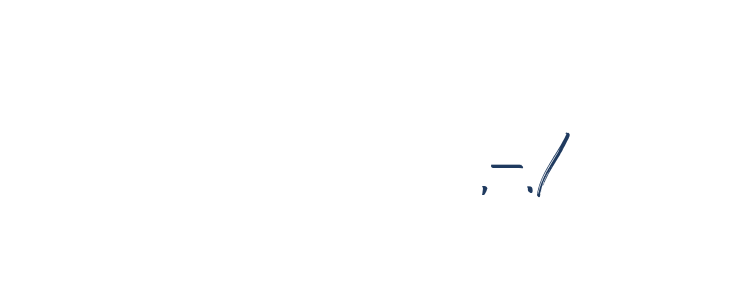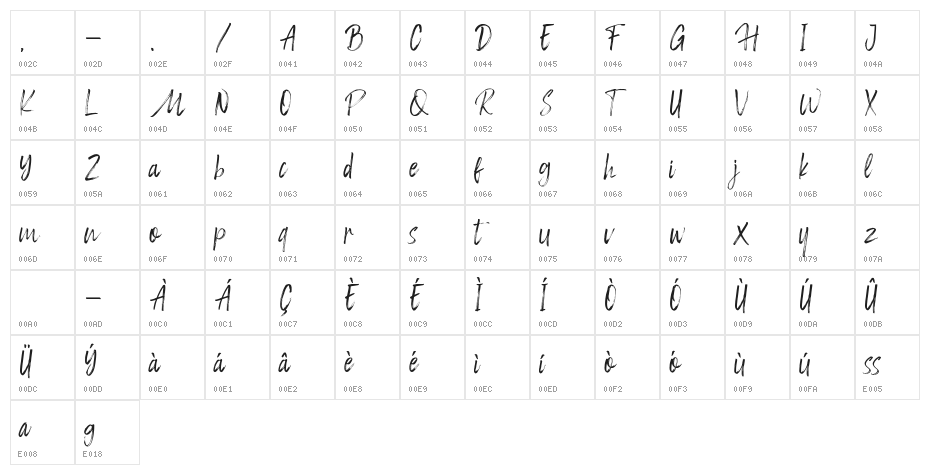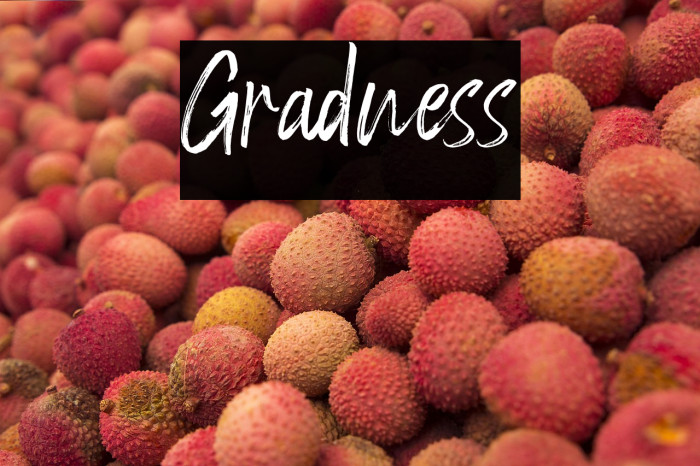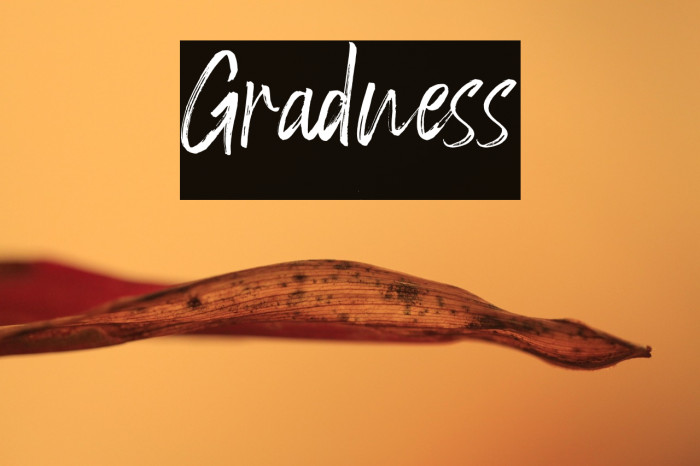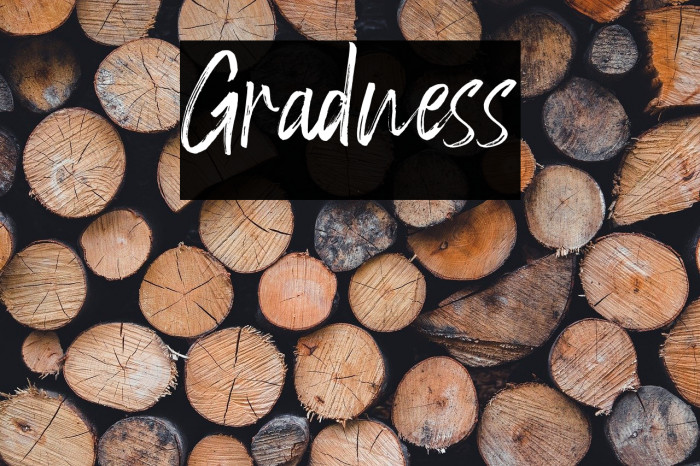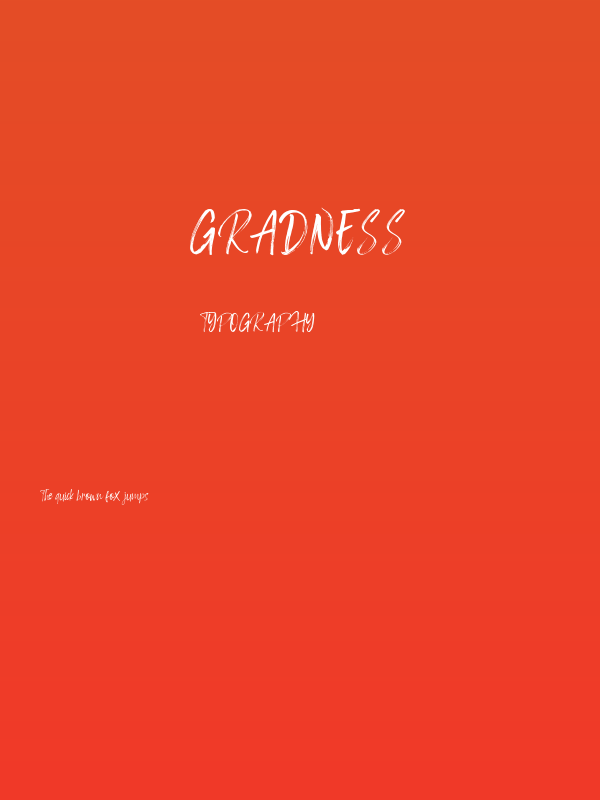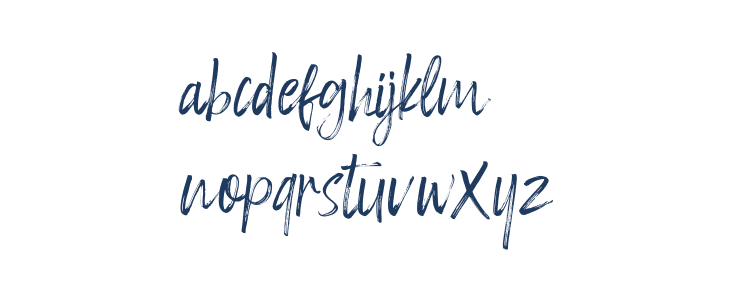
Gradness Font
Gradness Description
This font features a dynamic and expressive brush script style, characterized by its fluid strokes and artistic flair. The uppercase letters are bold and sweeping, with a sense of motion and energy, while the lowercase letters maintain a consistent flow, adding a touch of elegance. The font's rough texture and varying stroke widths give it a hand-painted appearance, making it ideal for creative projects. The numerals and special characters are crafted with the same attention to detail, ensuring a cohesive look across all text elements.
| Use Case | Logos, Headlines, Posters |
| Proposed Projects | Ideal for branding, packaging, posters, and invitations where a creative and artistic touch is desired. |